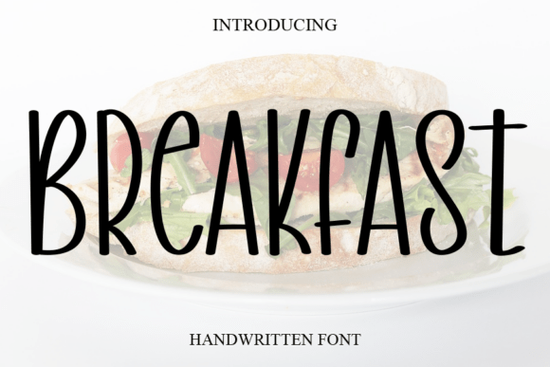
The Breakfast Font is a sweet, cursive handwritten typeface that brings a warm and romantic feel to any design. If you've been looking for a script font that feels casual yet elegant, this one is worth a closer look. It works beautifully for wedding invitations, branding projects, greeting cards, and social media graphics. In this article, we'll look at what makes it useful, who it's best for, and how to get the most out of it in your projects.
What Makes the Breakfast Font Stand Out?
There are thousands of handwritten fonts out there, so what makes this one different? The Breakfast Font has a flowing, gentle cursive style that doesn't feel stiff or overly formal. The letterforms connect smoothly, giving your text a natural, hand-lettered look.
It's the kind of font that looks like someone actually sat down and wrote it by hand not like a digital tool tried to simulate handwriting. That authenticity matters, especially for projects where you want to create a personal, approachable feel.
What Can You Use It For?
This font is surprisingly versatile. Here are some popular ways designers and small business owners put it to work:
- Wedding invitations and stationery The romantic cursive style fits perfectly with wedding themes.
- Logo design Great for brands that want a soft, friendly personality.
- Greeting cards Adds a handmade touch to birthday, thank-you, and holiday cards.
- Social media posts Ideal for quotes, announcements, and promotional graphics.
- Print-on-demand products Works well on mugs, tote bags, t-shirts, and posters.
- Fashion lookbooks and marketing materials Gives layouts a stylish yet relaxed vibe.
If you're working on branding for a bakery, boutique, florist, or lifestyle blog, the Breakfast Font pairs nicely with clean sans-serif typefaces for a balanced look.
Is It Easy to Work With?
One thing to keep in mind: script fonts like this one look best at larger sizes. They're designed for headlines, titles, and display text rather than long paragraphs. If you're pairing it with body text, choose a simple serif or sans-serif font to keep things readable. You can learn more about typography basics if you want to improve your font pairing skills.
Quick Tips for Pairing and Using It
- Pair it with a light sans-serif like Montserrat or Lato for a modern contrast.
- Use it at 24pt or larger for the best readability.
- Avoid using all caps cursive fonts like this are designed for mixed-case or lowercase text.
- Add extra letter spacing if the connected letters feel too tight in your layout.
- Test it on both light and dark backgrounds to make sure it stays legible.
Who Is This Font Best For?
The Breakfast Font works well for anyone who needs a handwritten cursive typeface that feels genuine without being too casual. It's a strong choice for:
- Crafters making handmade cards, scrapbook layouts, or vinyl decals.
- Print-on-demand sellers designing products for Etsy, Redbubble, or Shopify stores.
- Small business owners building a brand identity with a warm, personal touch.
- Social media managers creating eye-catching posts and stories.
- Graphic designers working on client projects that need an elegant but approachable script.
- Consider your audience This font works best for projects targeting a feminine, romantic, or lifestyle-oriented audience.